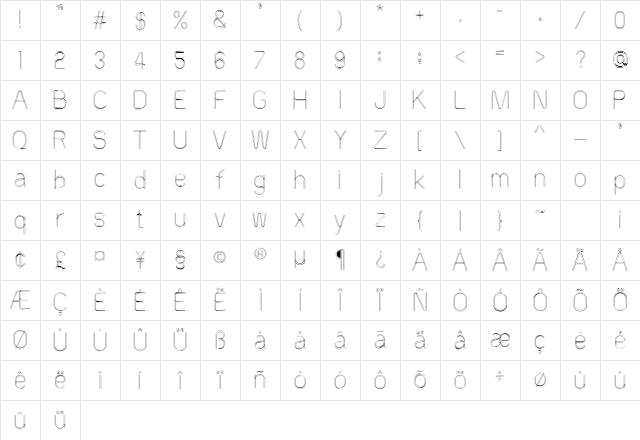
Complete 60sSTRIPE Regular glyph index. Displaying only characters natively supported by 60sSTRIPE Regular font.
60sSTRIPE is a composed and adaptable typeface that performs quietly and consistently across a wide range of design contexts.
Who designed the 60sSTRIPE Regular font?